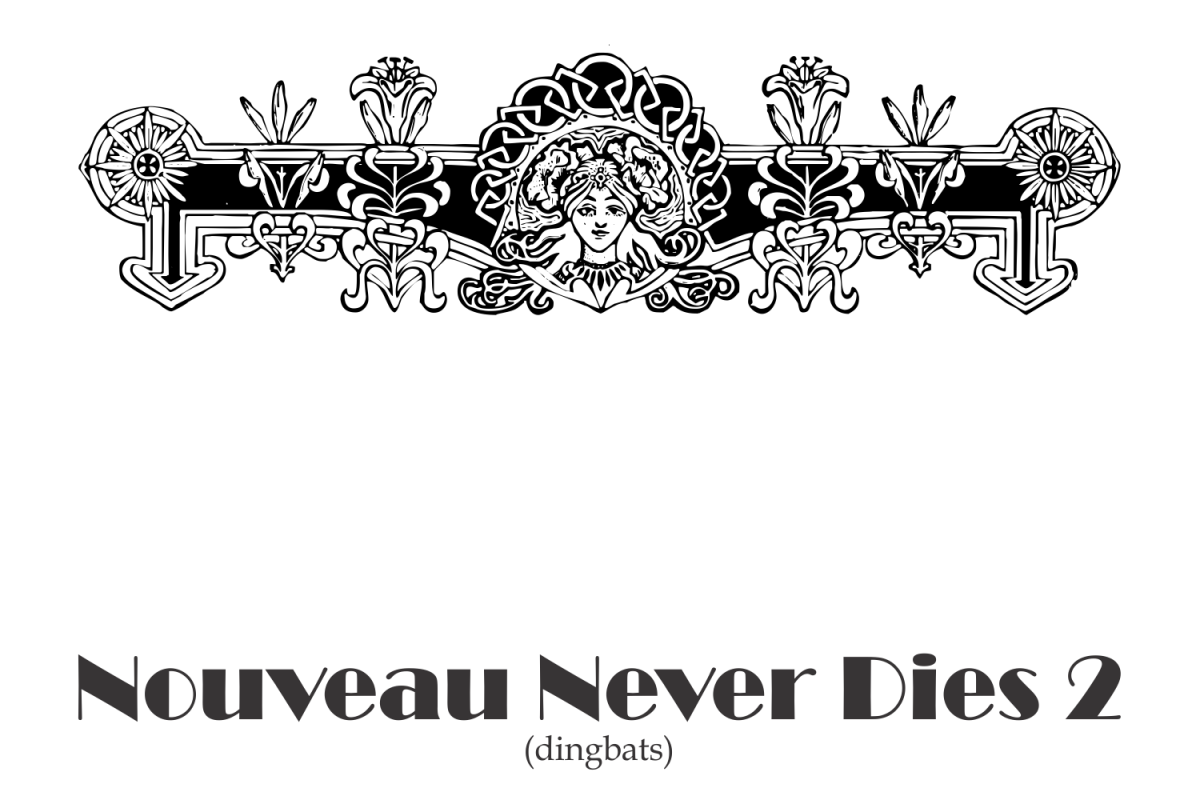
Nouveau Never Dies 2
Nouveau Never Dies is a dingbat font with Art Nouveau motifs. see too the family pack with more fonts and cheap price : https://fontbundles.net/intellecta-design/34563-nouveau-never-dies-family